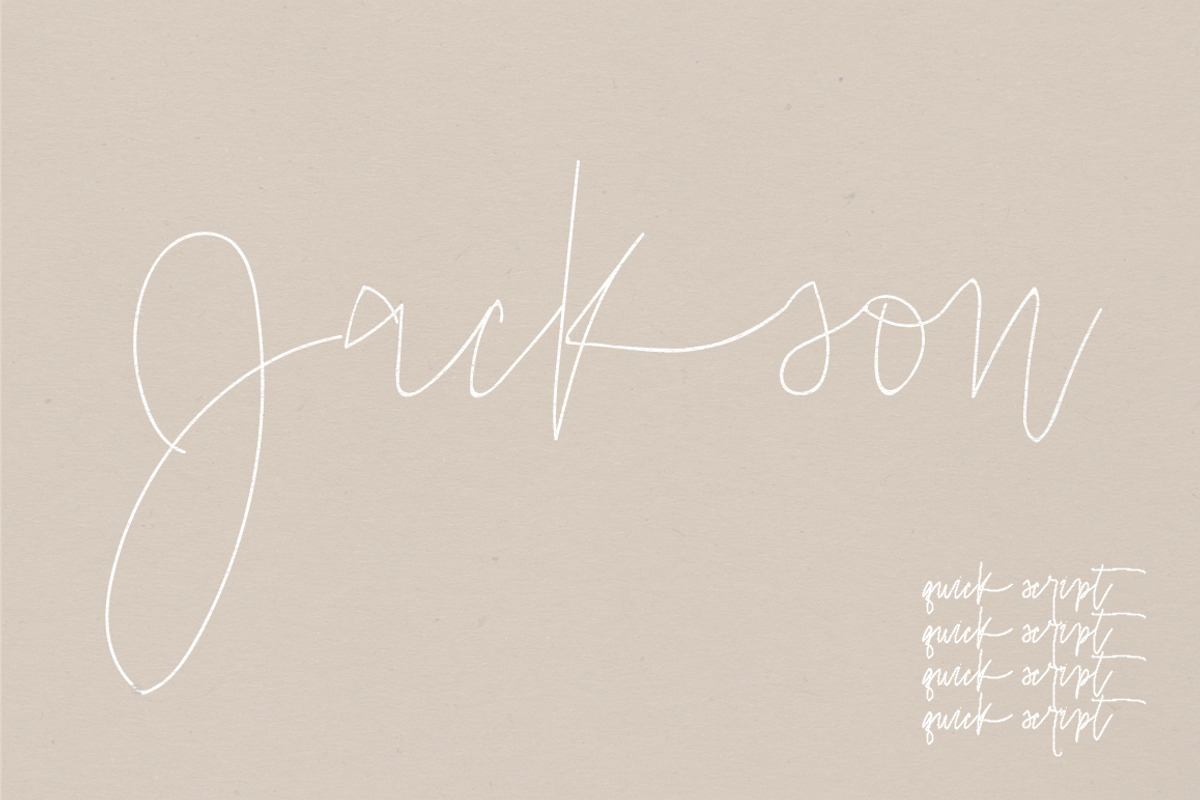
Jackson Script | A Romantic Script Free Download
Jackson Script – A Romantic Script Font Free Download
Please note that you must purchase this font for commercial use. You can download Jackson Script – A Romantic Script Font for free, strictly for personal testing purposes only. Jackson Script is a beautiful, flowing handwritten typeface that exudes romance, elegance, and timeless charm. With its graceful curves and smooth stroke transitions, Jackson Script Font Free Download is perfect for wedding invitations, love letters, branding, product packaging, social media quotes, and feminine logo designs.
This font captures the essence of handwritten elegance—ideal for adding a heartfelt, personal touch to your creative projects. It includes uppercase and lowercase letters, numerals, punctuation, and multilingual support, along with stylish ligatures and swashes for added versatility.
Whether you're crafting a dreamy wedding suite or building a delicate brand identity, Jackson Script brings warmth, beauty, and sophistication to every letter.